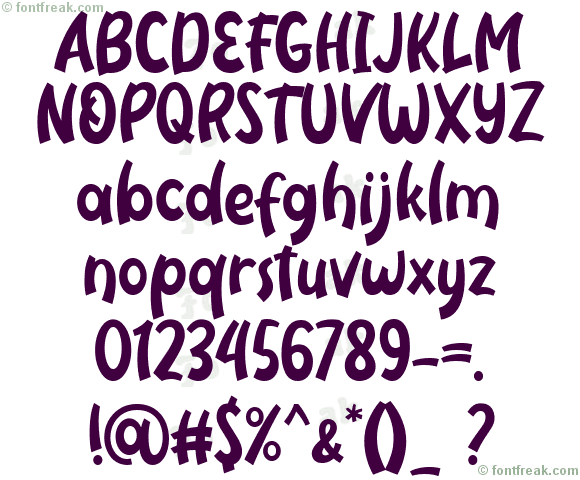
Neigfriste
About Neigfriste
Neigfriste, created by Situjuh Nazara, is an eye-catching display font that embodies a unique and playful aesthetic. This decorative typeface features soft, rounded edges and a slightly irregular stroke weight, giving it a hand-drawn feel that is both inviting and whimsical. The contrast between the thicker and thinner lines adds a dynamic quality to the font, making it visually engaging. The generous spacing between letters enhances readability while retaining a friendly vibe, making it suitable for various creative applications.
This font is incredibly versatile, with ideal use cases including wedding invitations, where its charm can elevate the overall design; children's book covers that call for a friendly and approachable look; restaurant menus that wish to convey a casual and fun atmosphere; event posters that need to grab attention; and social media graphics aimed at engaging audiences. The playful nature of Neigfriste makes it particularly appealing to graphic designers, small business owners, and content creators looking to add a distinctive touch to their projects.
What sets Neigfriste apart is its ability to blend versatility with personality. This font stands out not just for its visual appeal but also for the warmth it brings to any design. Whether you're crafting an inviting promotional flyer or a heartfelt invitation, Neigfriste brings a sense of joy and creativity that resonates with viewers. Best of all, Neigfriste font free download allows you to explore its endless possibilities without any cost, making it an excellent addition to your typography toolkit. Embrace the charm of Neigfriste and let your designs shine with this delightful typeface.